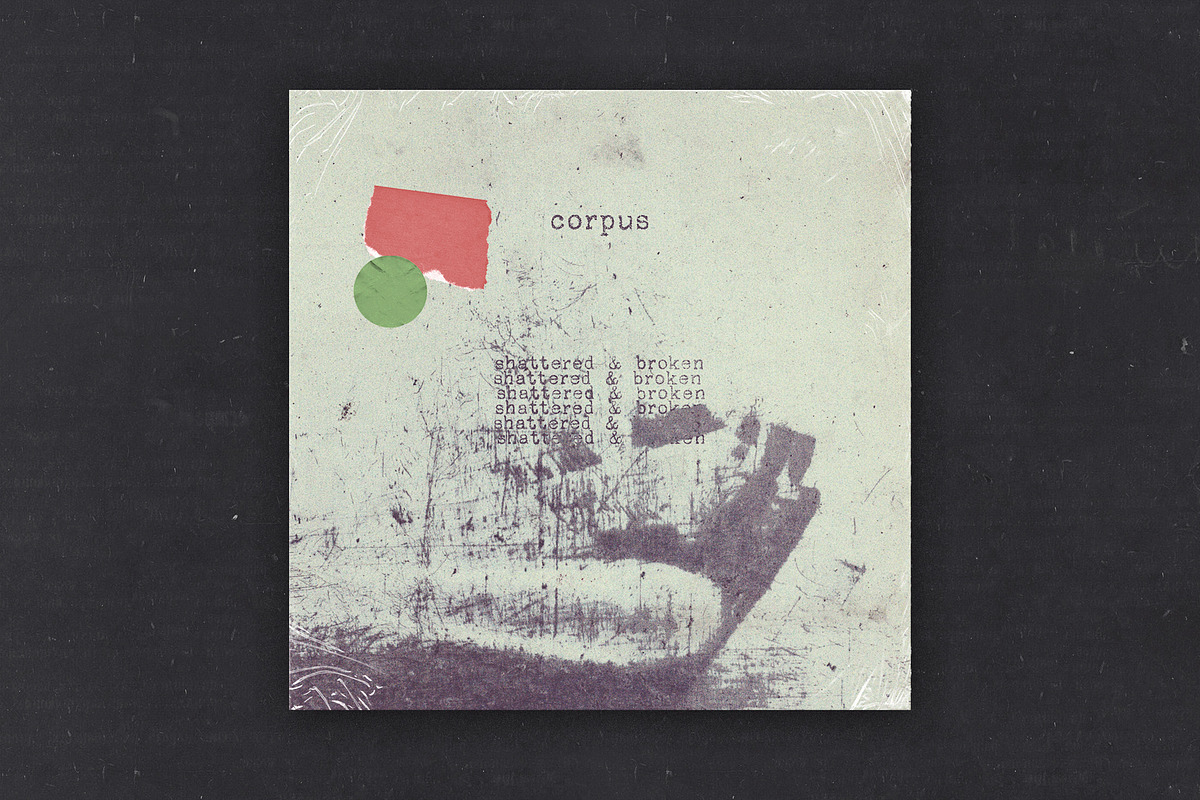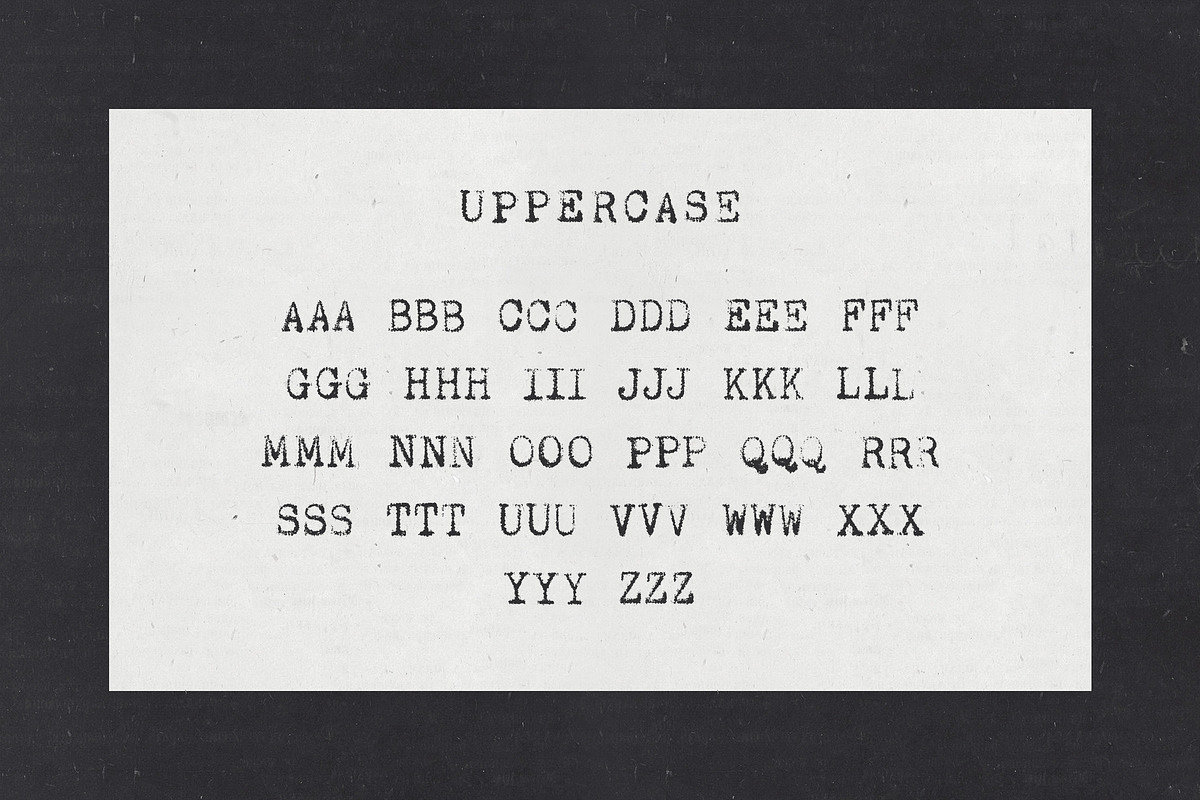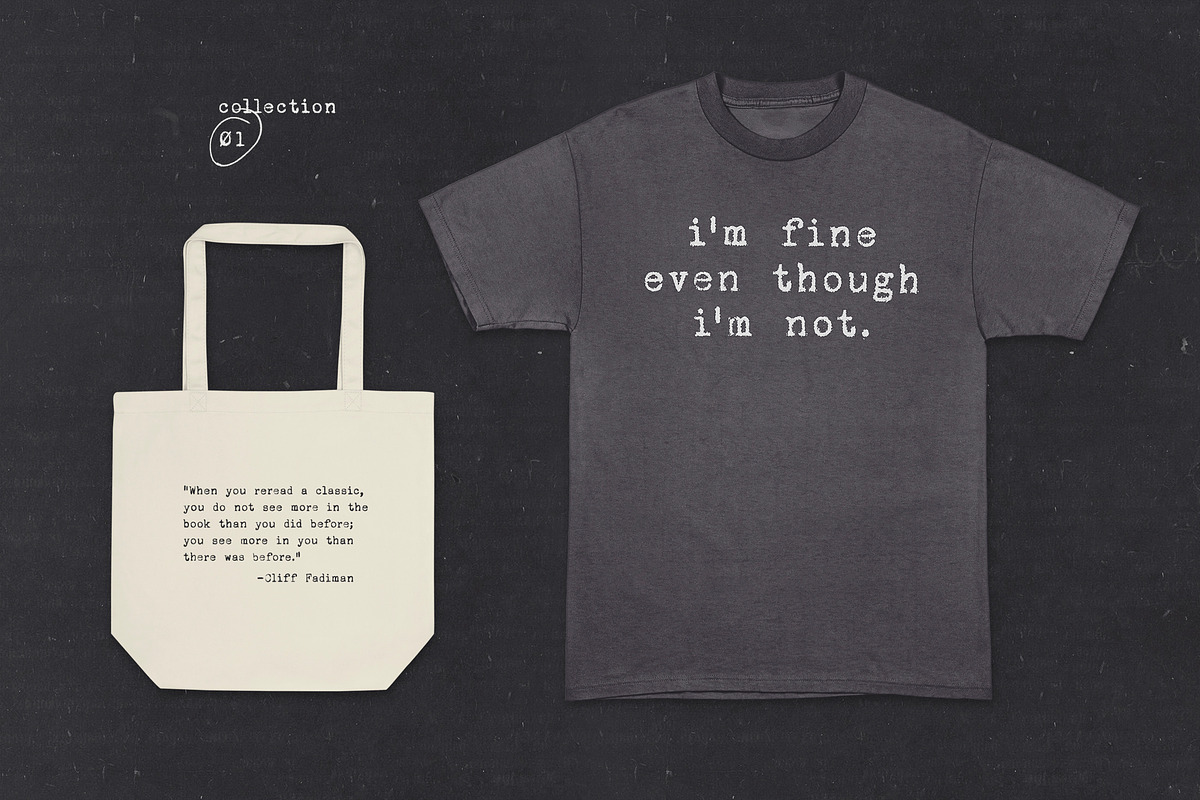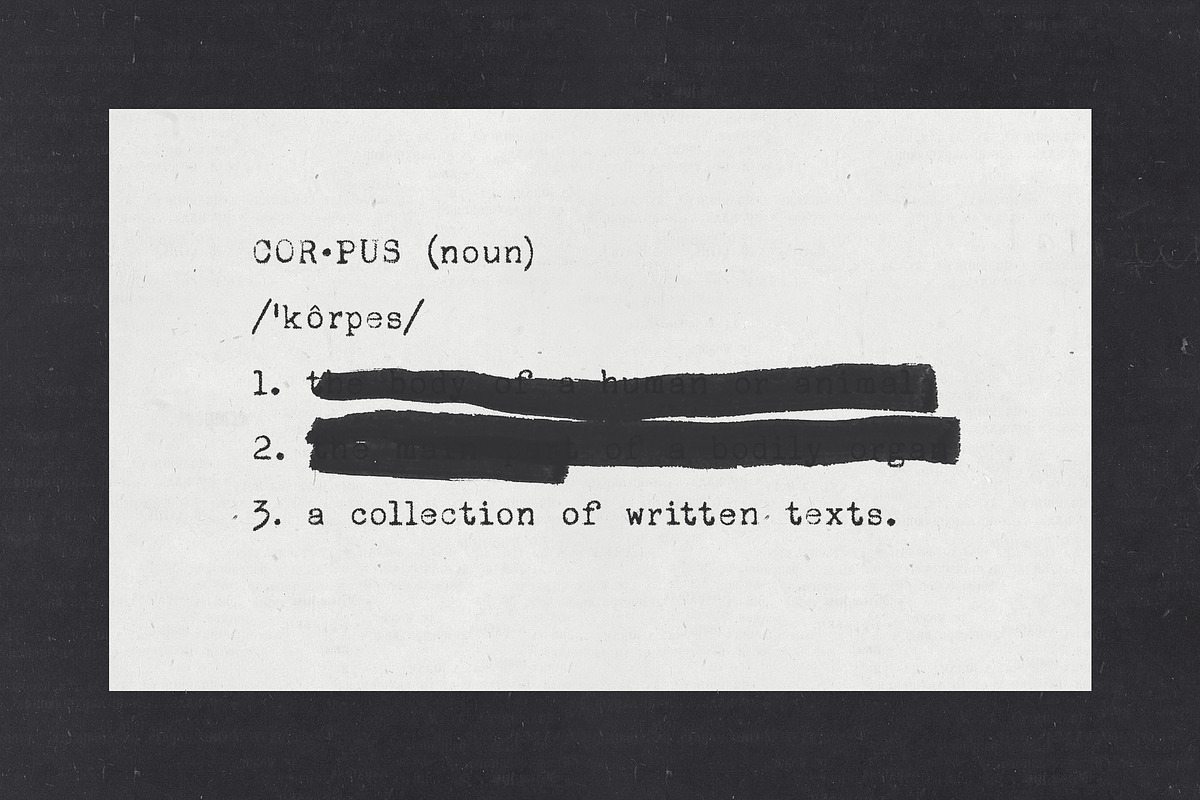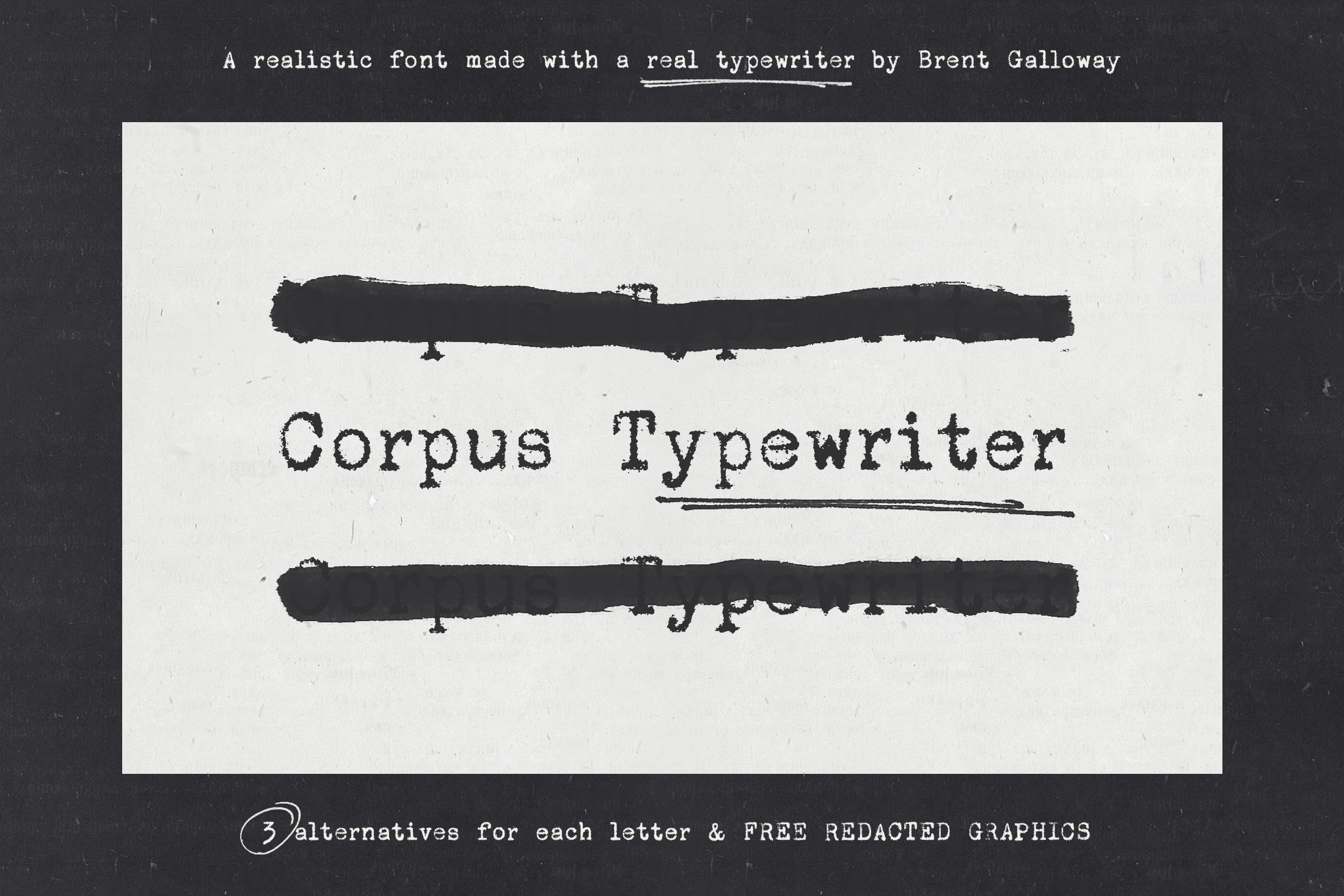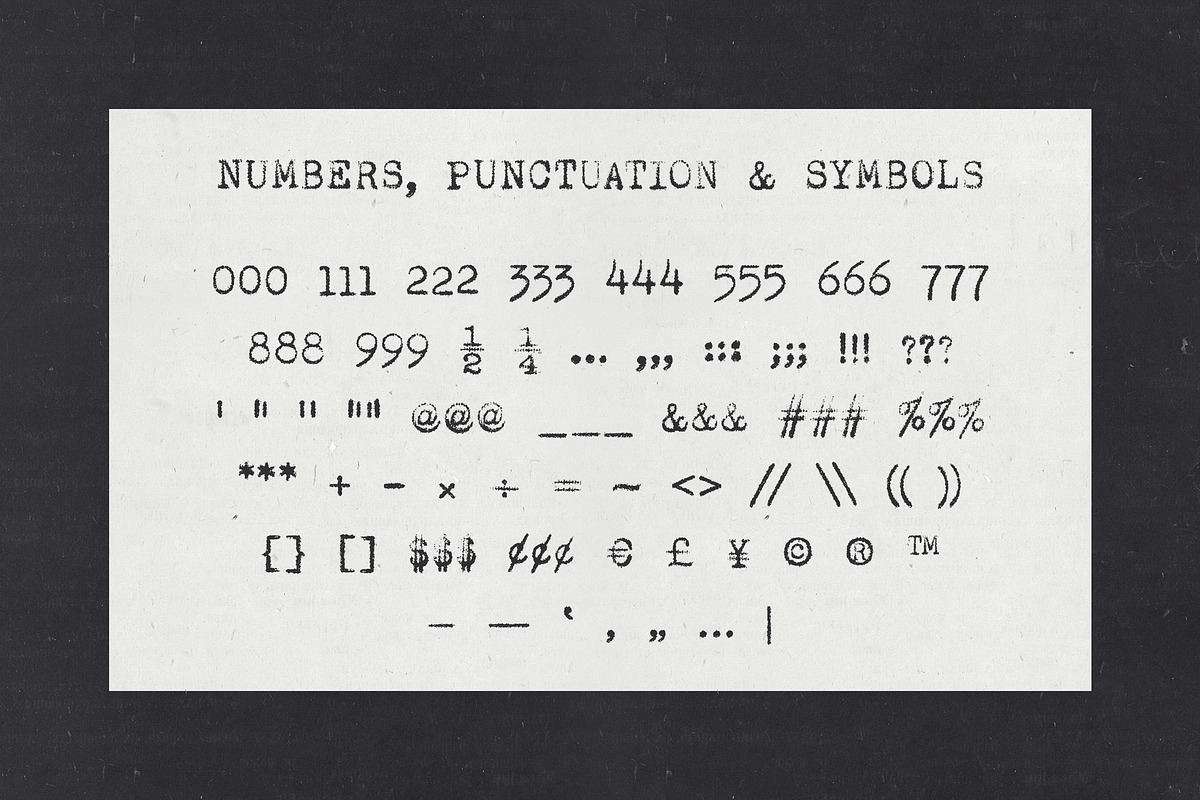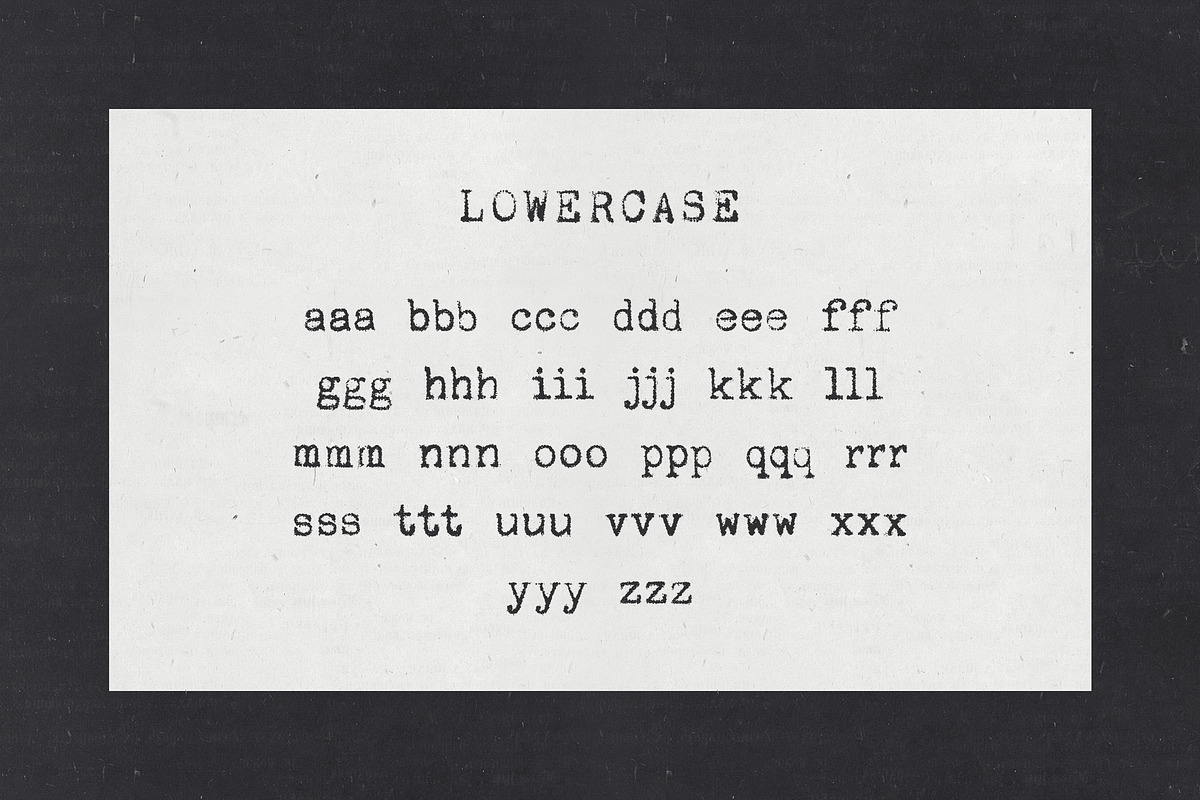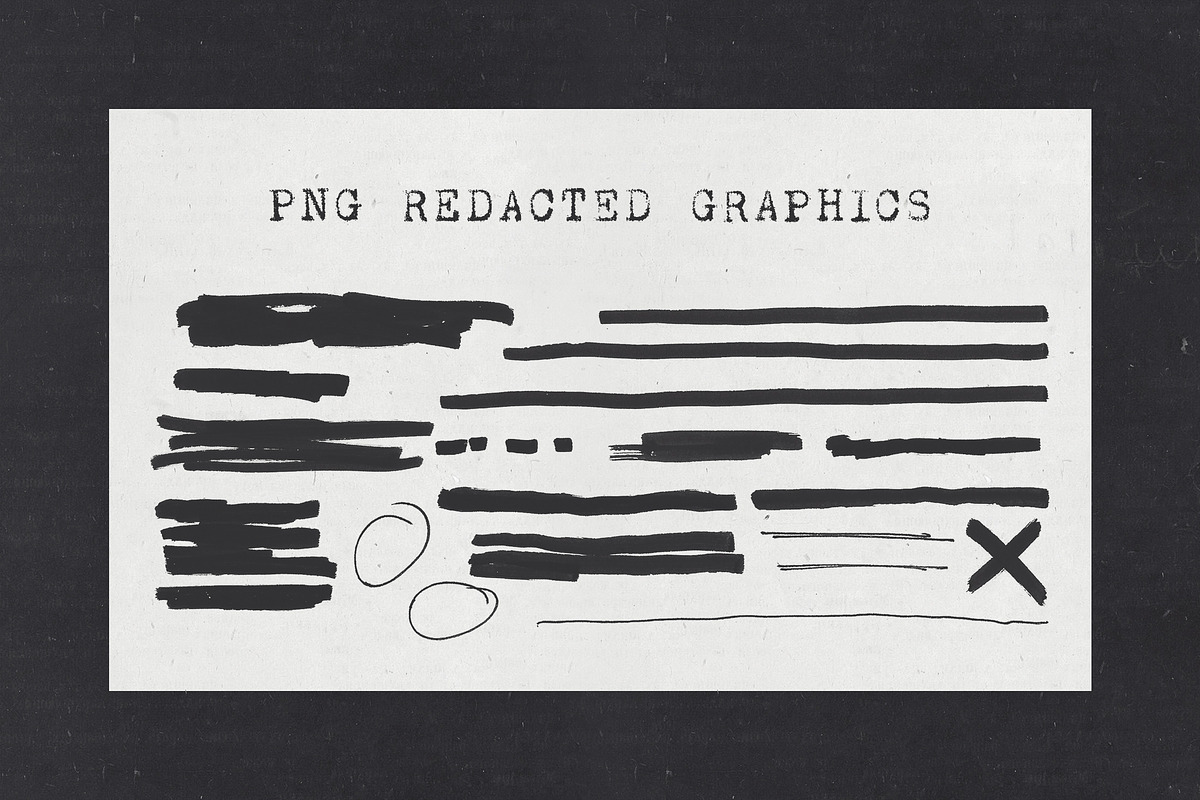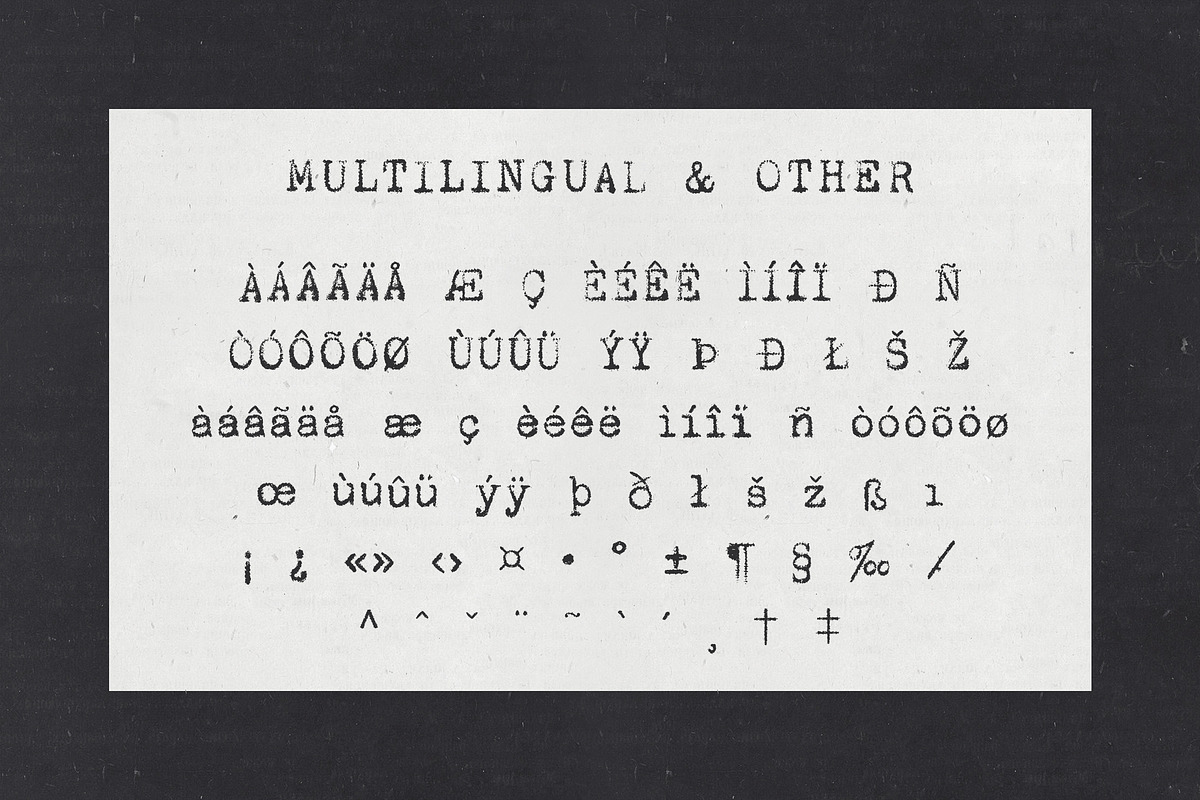
Corpus Typewriter Font
Corpus Typewriter is an authentic typewriter font, sampled from a real vintage typewriter.
Each letter and number has three alternative characters, giving you a large variety of options to get an authentic, vintage look.
FREE Redaction Graphics: included with the typewriter font are 18 high-resolution PNG Redaction Graphics. These graphics were created with an authentic redaction marker and go perfectly with the Corpus Typewriter font.